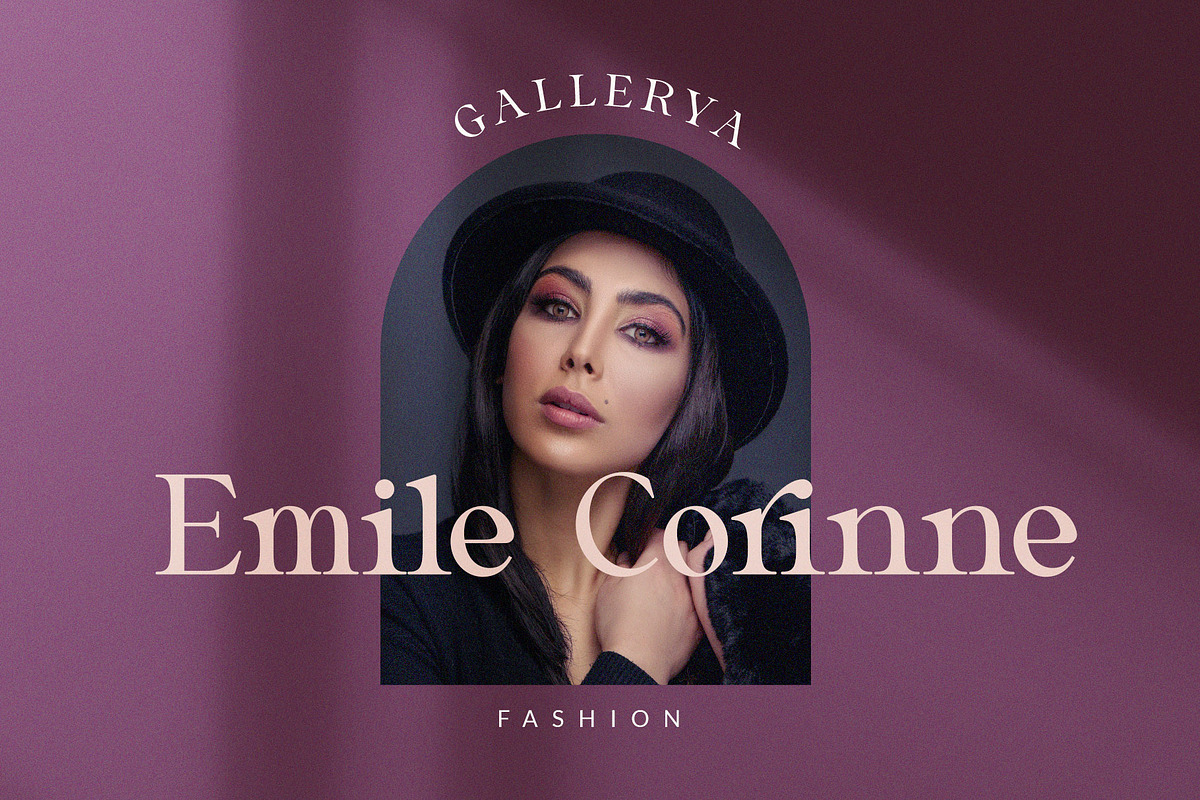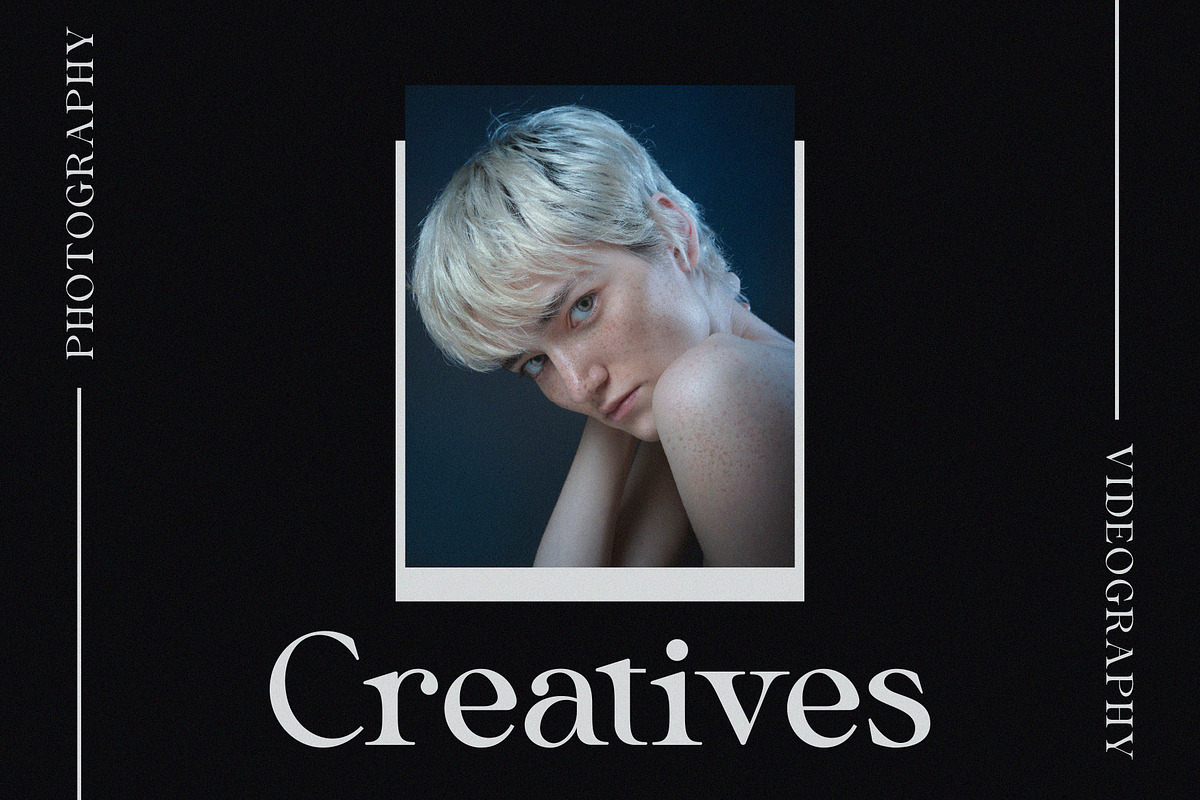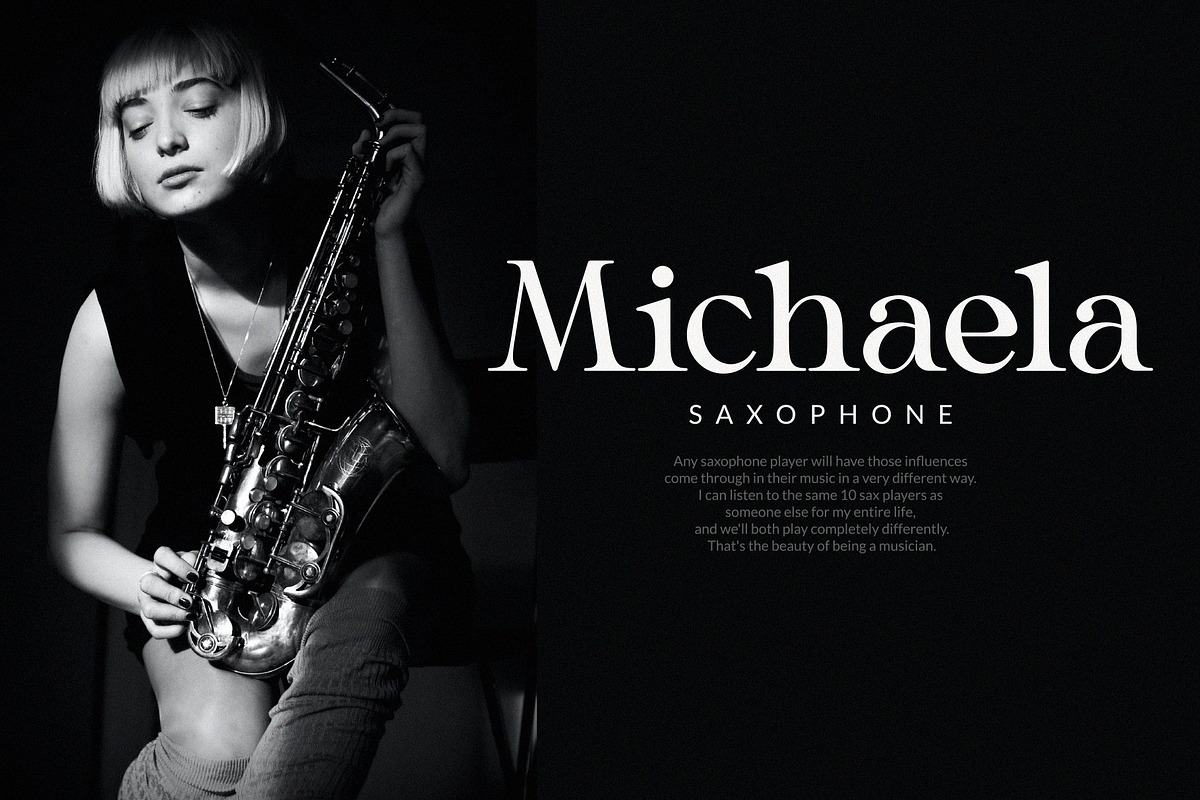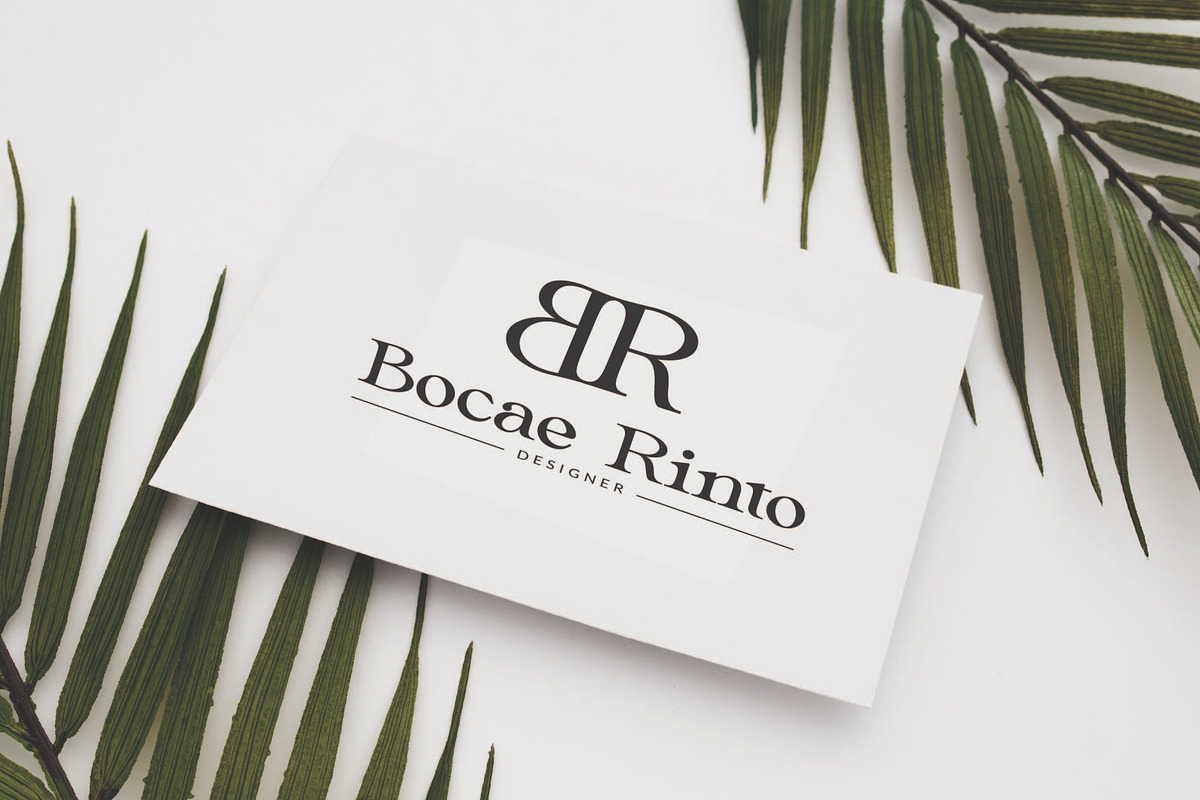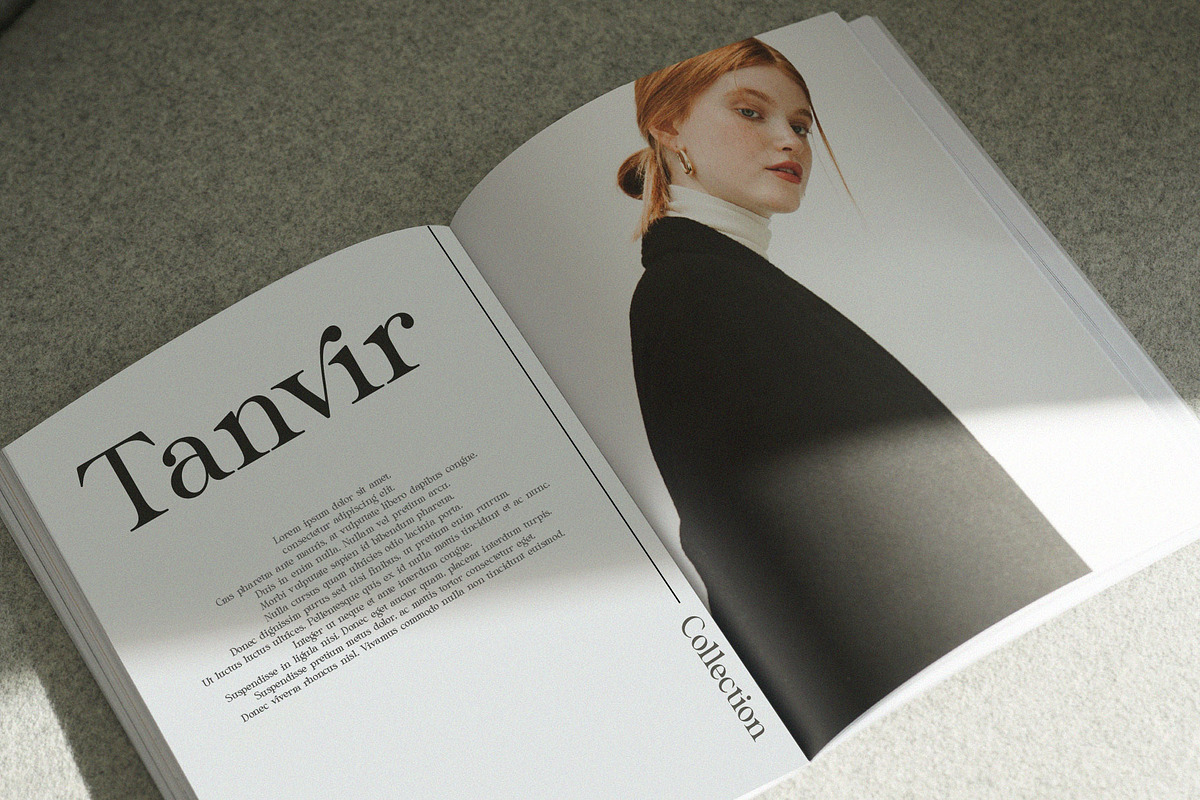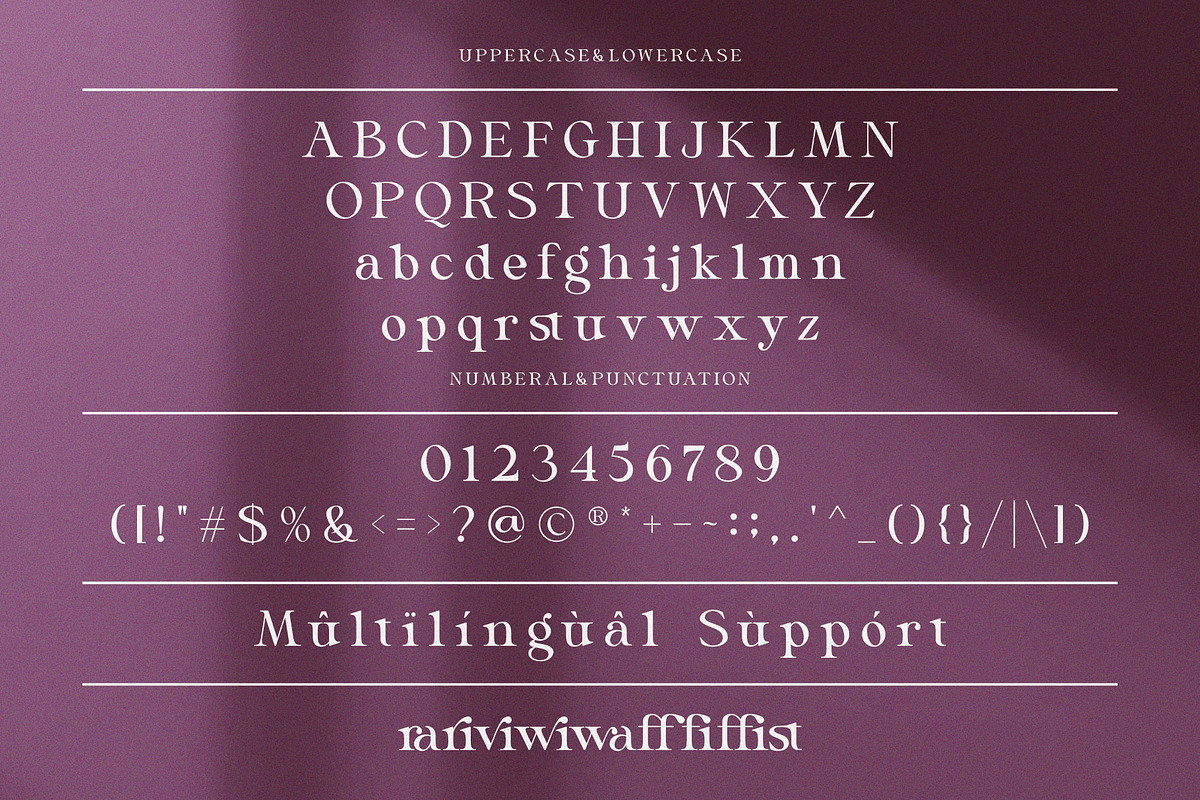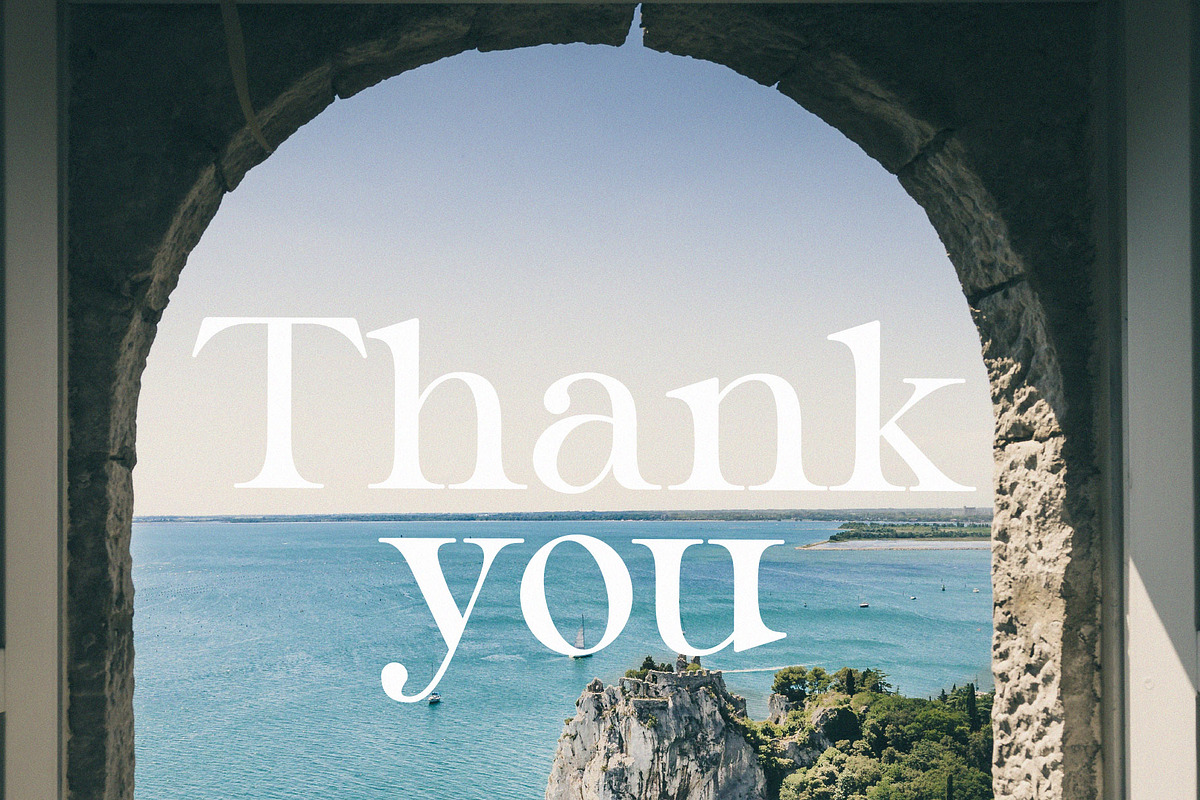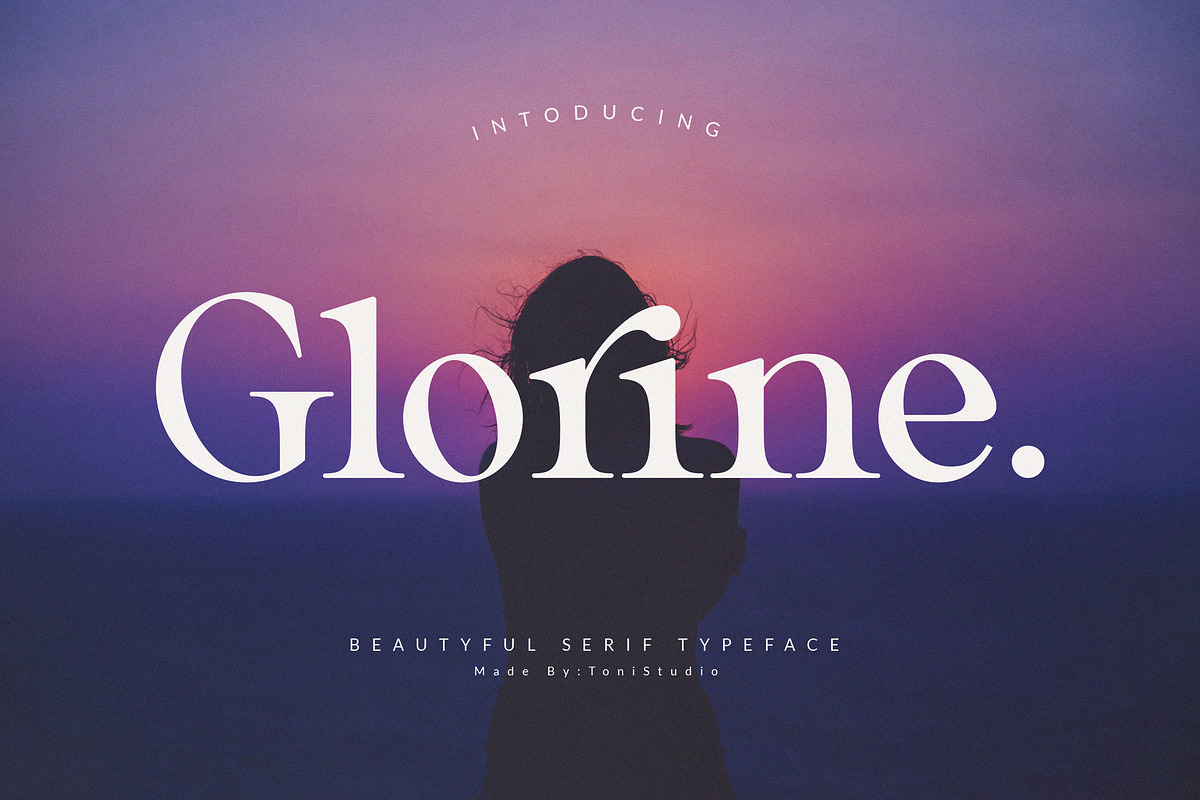
Glorine
Glorine is a classic and timeless serif typeface that looks amazing and classy in every context. This font is modern and nostalgic and is perfect for logos, magazines, social media. It's matched and ready to be used together for your next design! For those of you who need a touch of elegance, style, classy, chic and modernity to your designs, this font was created for you!